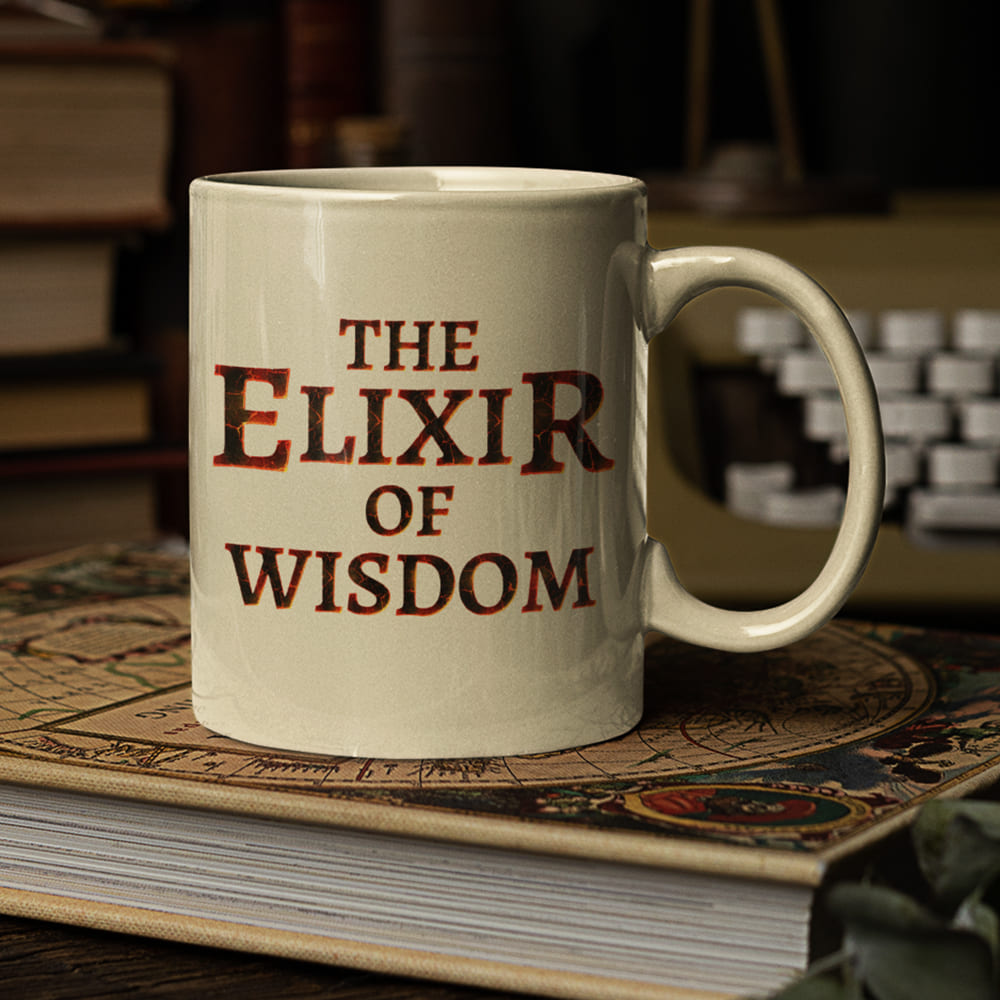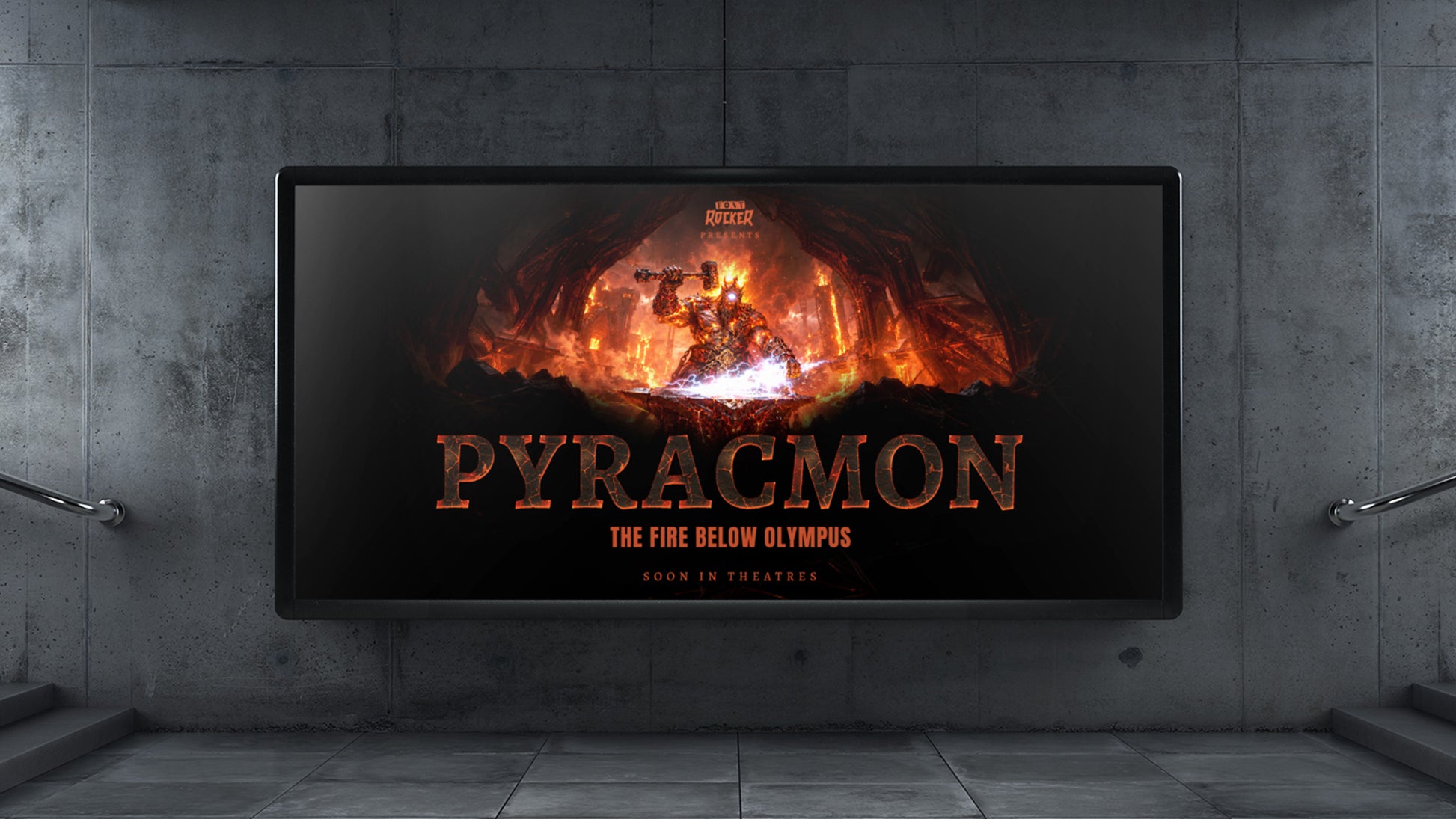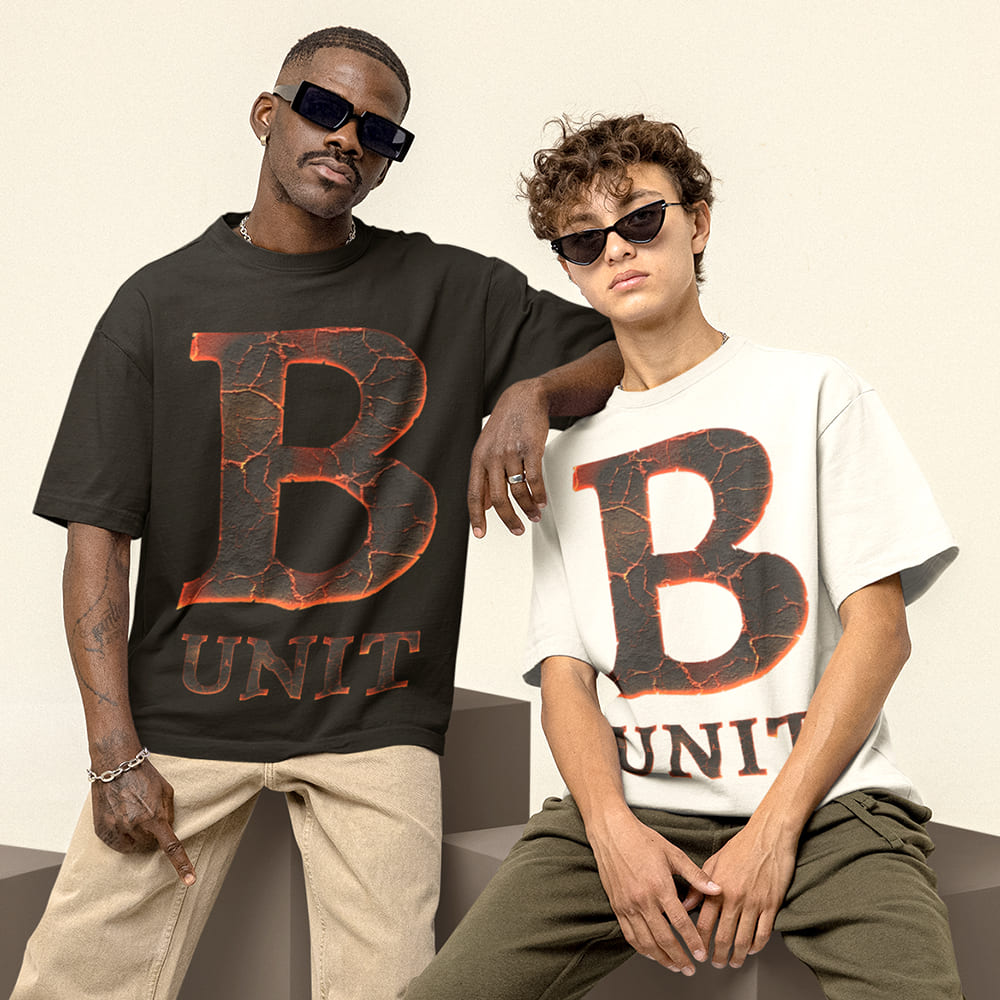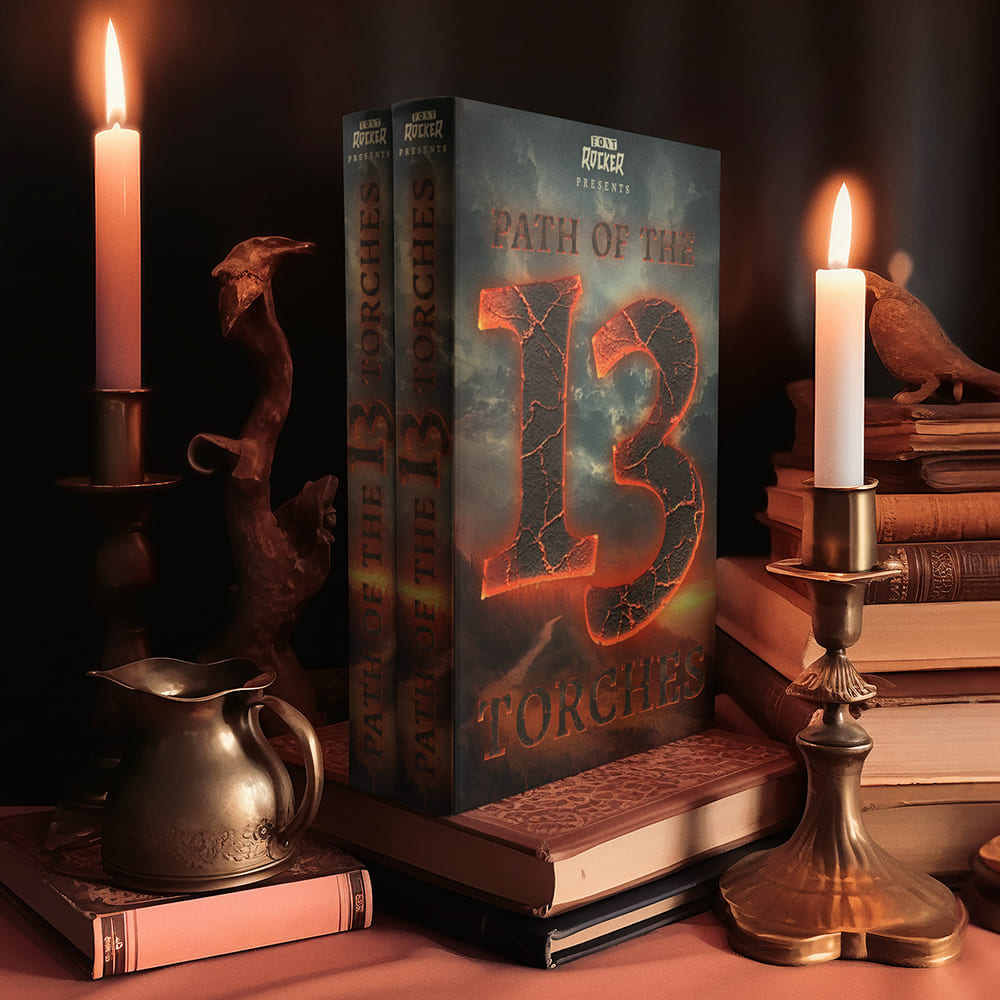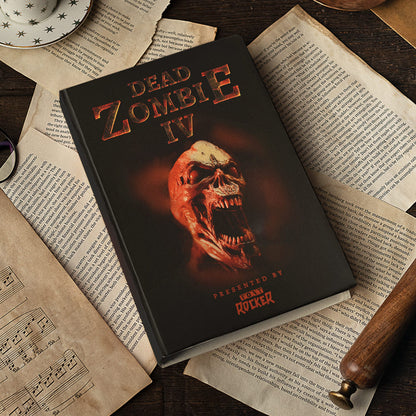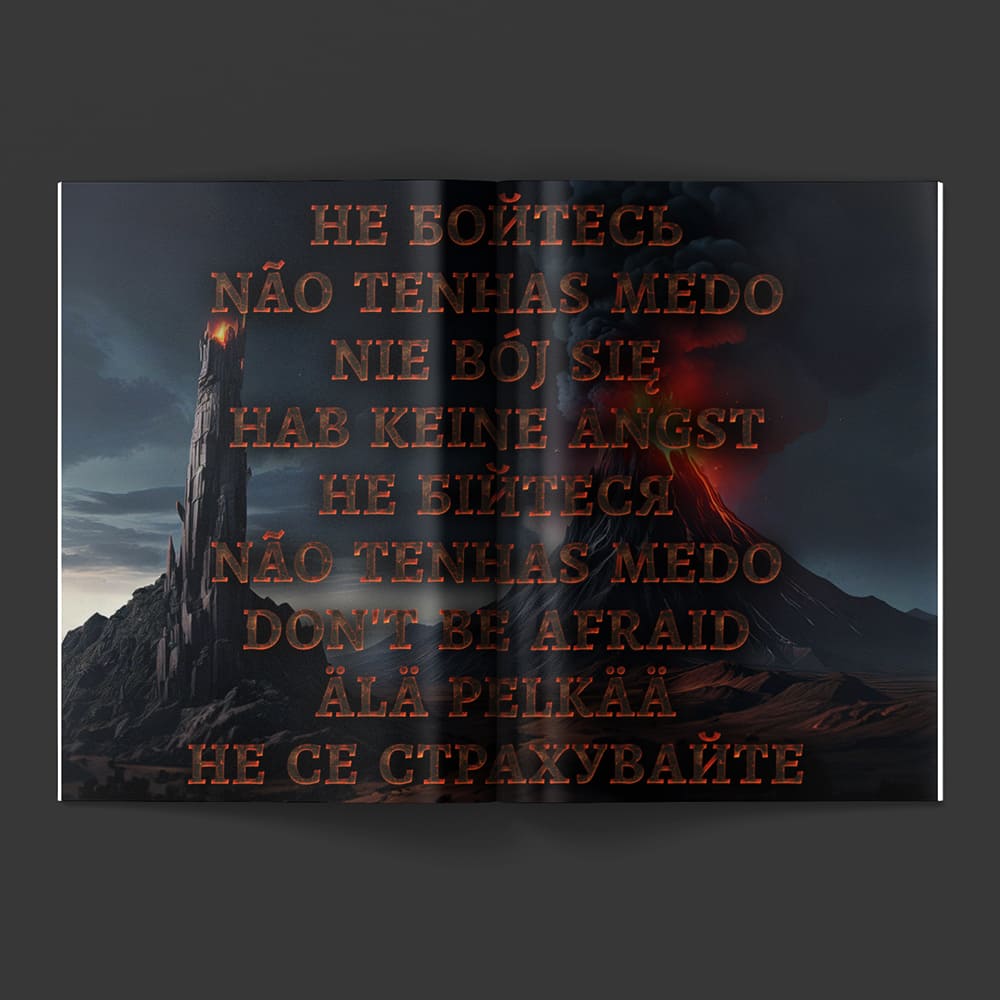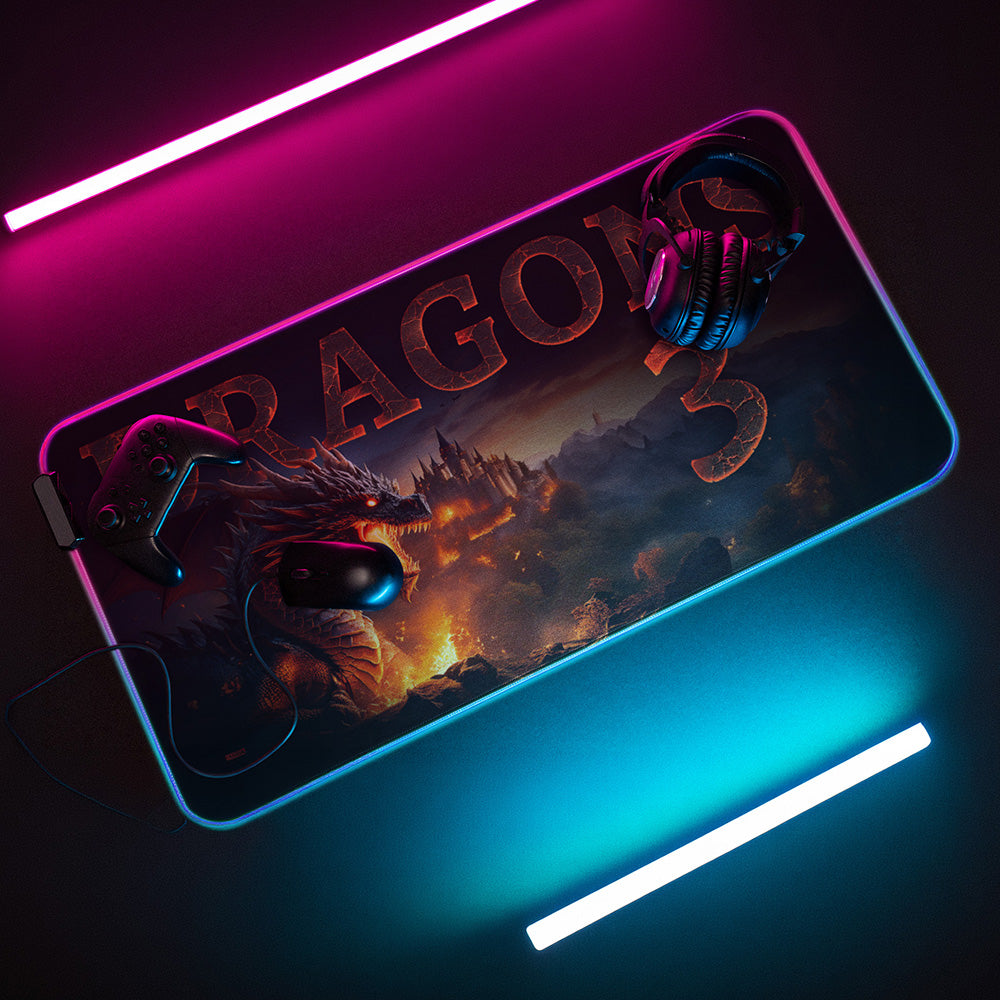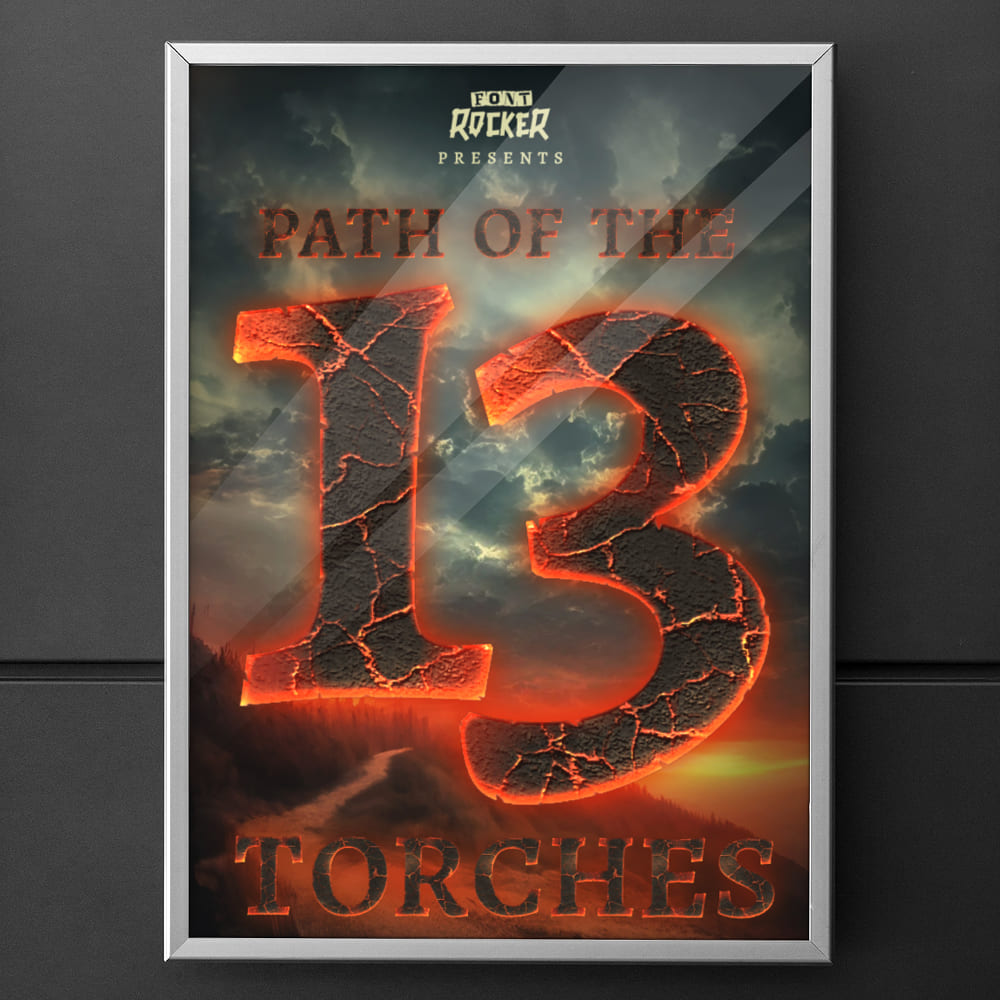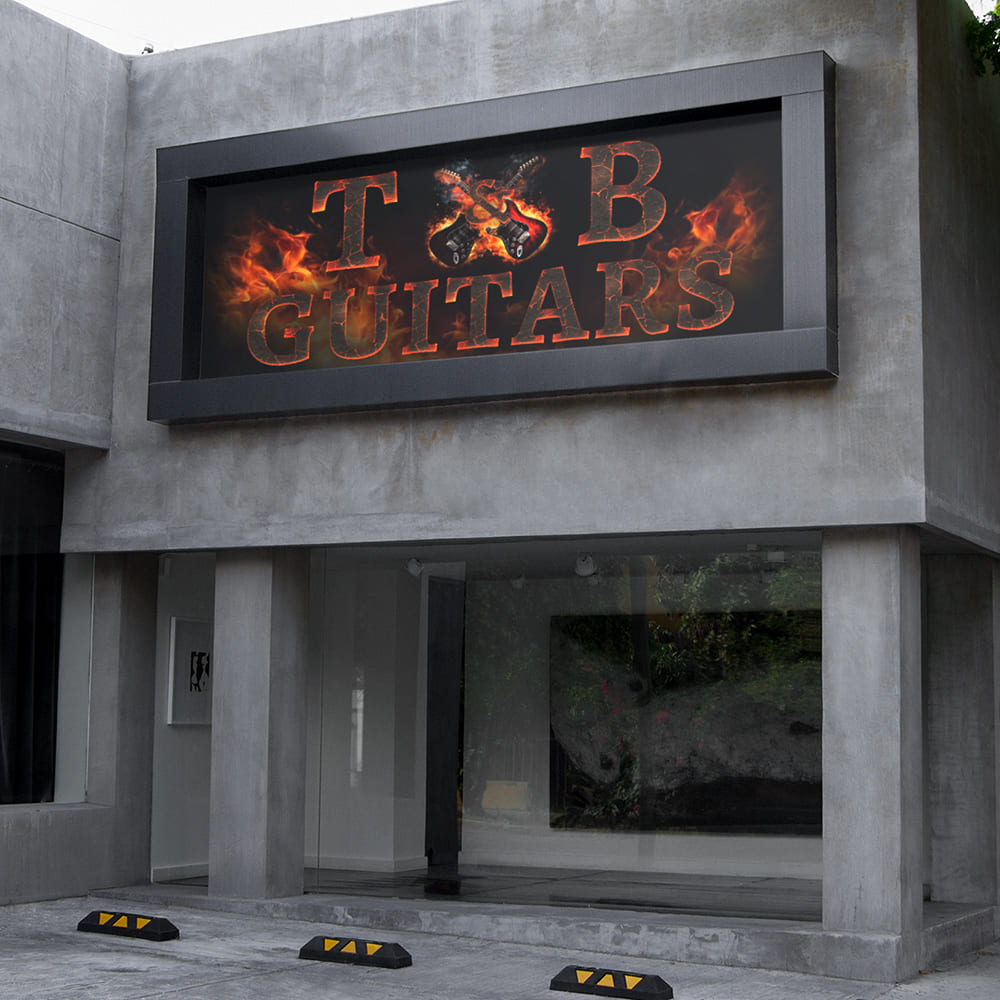
Pyracmon Font
Glowing. Mighty. Unbreakable. π₯βοΈβ‘π
From the depths of ancient volcanic forges rises a font that carries fire, metal, and divine power within its form β the Pyracmon Font!
Inspired by Pyracmon, the mythical Cyclops blacksmith, by ancient Greek legends, divine forges, thunderbolts, and the molten heart of the earth, this font brings the raw energy of a mythic anvil straight into your design. Pyracmon, the mighty Cyclops smith β one of the great masters of fire who worked in the underground forges of Hephaestus and Vulcan. Where ore melts, hammers thunder, and sparks fly through the darkness like stars, no ordinary typeface is born. There, power is forged. Every letter feels as if it were struck from glowing steel, hardened in lava, and marked by the breath of Etna.
Why Choose the Pyracmon Font?
πΉ Forged in fire β made for legends β A font that looks as if it were shaped on a divine anvil and burned into blackened metal.
πΉ Perfect for fantasy, gaming & monumental designs β Whether for movie posters, book covers, T-shirts, logos, or epic branding projects, this font creates designs that feel as if they came straight from an ancient forge of the gods.
πΉ Raw, powerful, unforgettable β The Pyracmon Font is no quiet companion. It strikes like a hammer on glowing iron β heavy, loud, and full of mythic energy.
Unleash the fire of the forge in your design!
With the Pyracmon Font, you bring the strength of the Cyclopes, the heat of the volcano, and the force of divine craftsmanship into your project. A font that does not ask. It hammers, burns, and dominates β created for designs that rise from the crowd and refuse to be forgotten.
πΉ Forge your design. Show your power. Choose the Pyracmon Font.